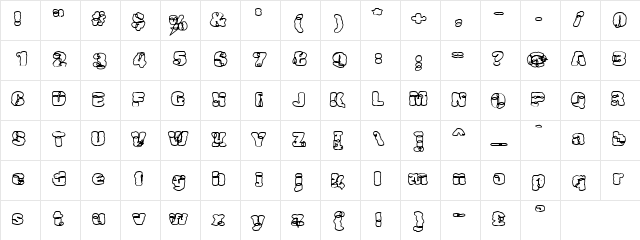
Joblot Regular
Design Context for Joblot Typeface
Joblot is a composed and adaptable typeface that performs quietly and consistently across a wide range of design contexts.